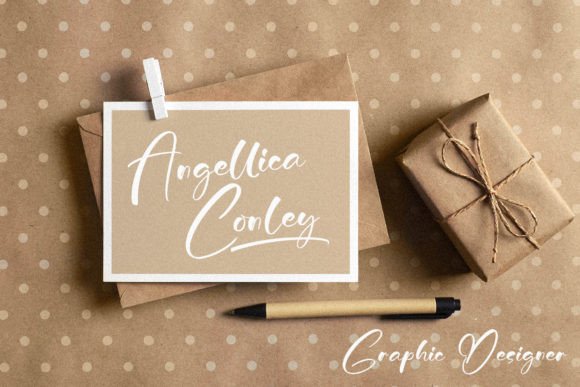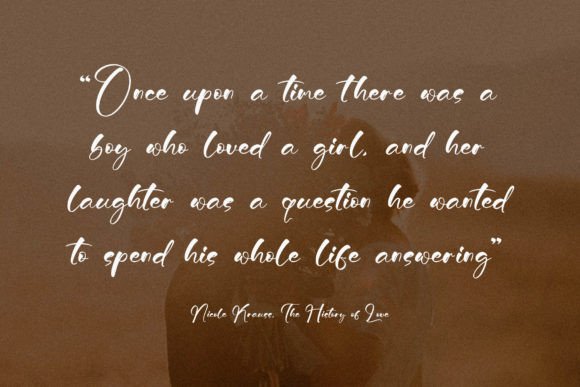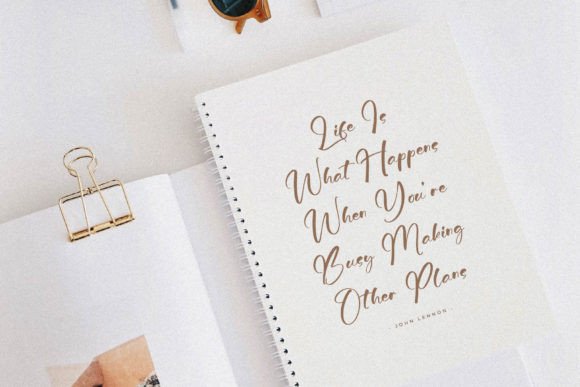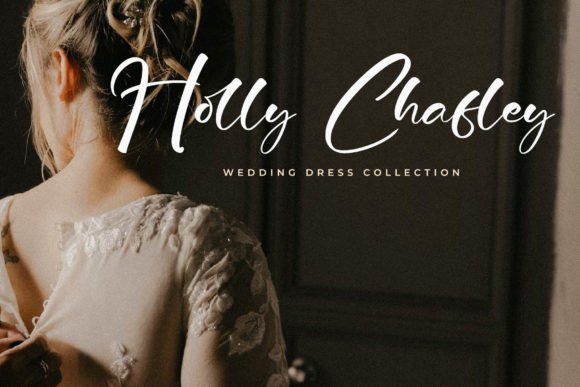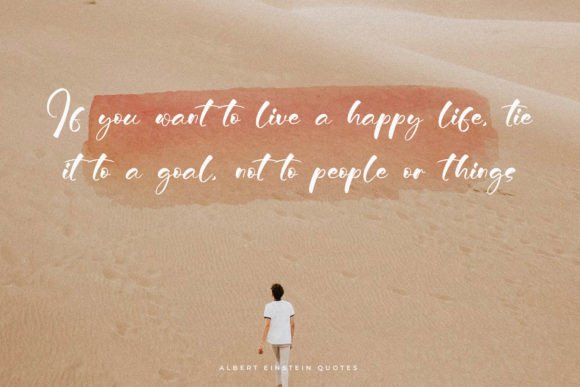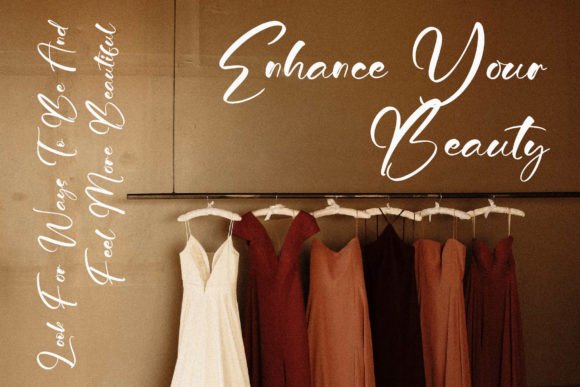
Introduction to Klasttic Rolesta Font
Klasttic Rolesta is a dazzling script font.
This font is neatly crafted and highly detailed Whatever the topic, this font will be a wonderful asset to your font library, as it has the potential to enhance any creation.
Klasttic Rolesta Font offers exceptional quality and versatility, making it a valuable addition to your design toolkit. Whether you’re creating for personal projects or commercial use, Klasttic Rolesta Font delivers professional results.